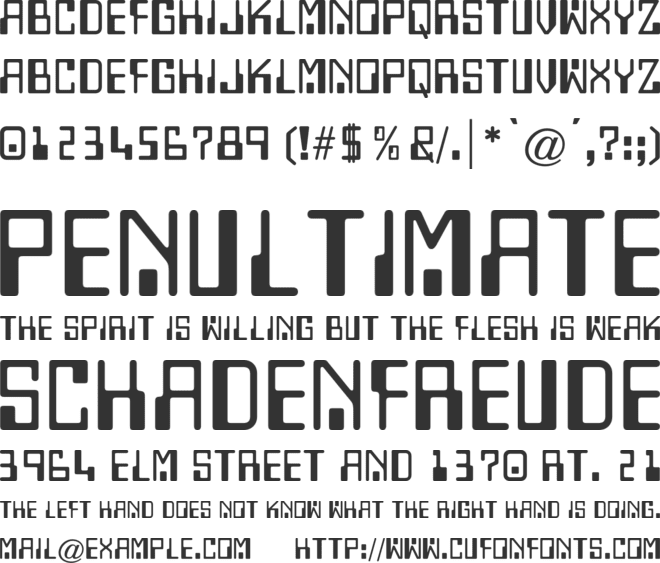
AT Computer Std Font
Computer is an all-capitals headline font that immediately implies early mainframe computer technology.
Although desktop computers and better screen and printer faces have been available for some time, the type style of the Computer font is still used for futuristic topics.